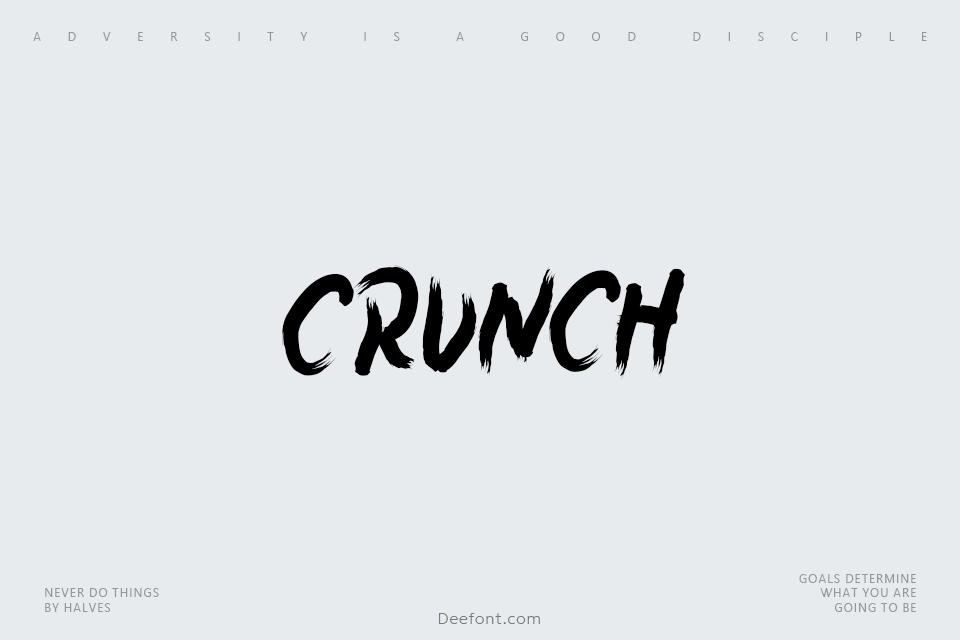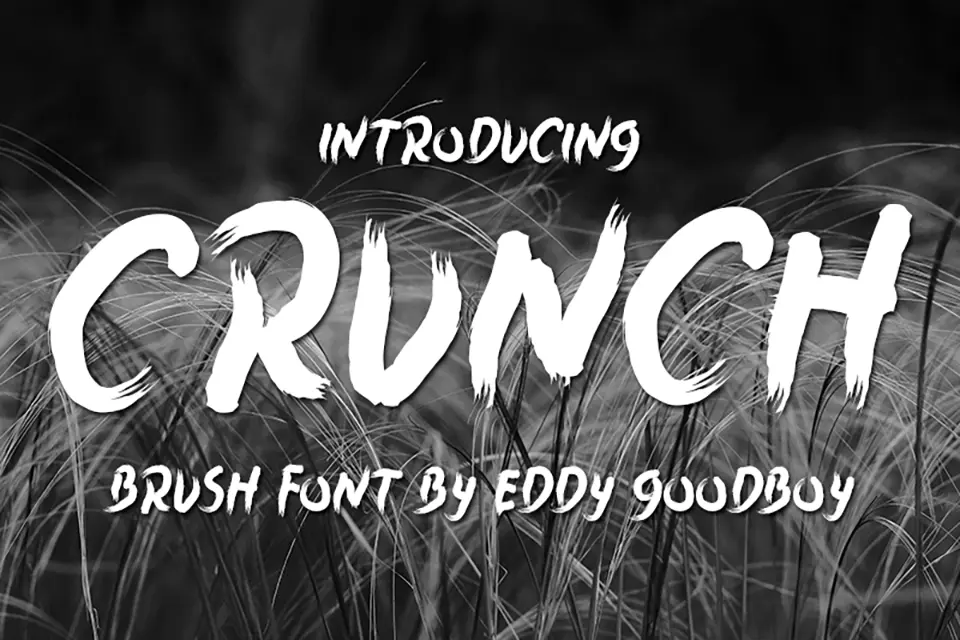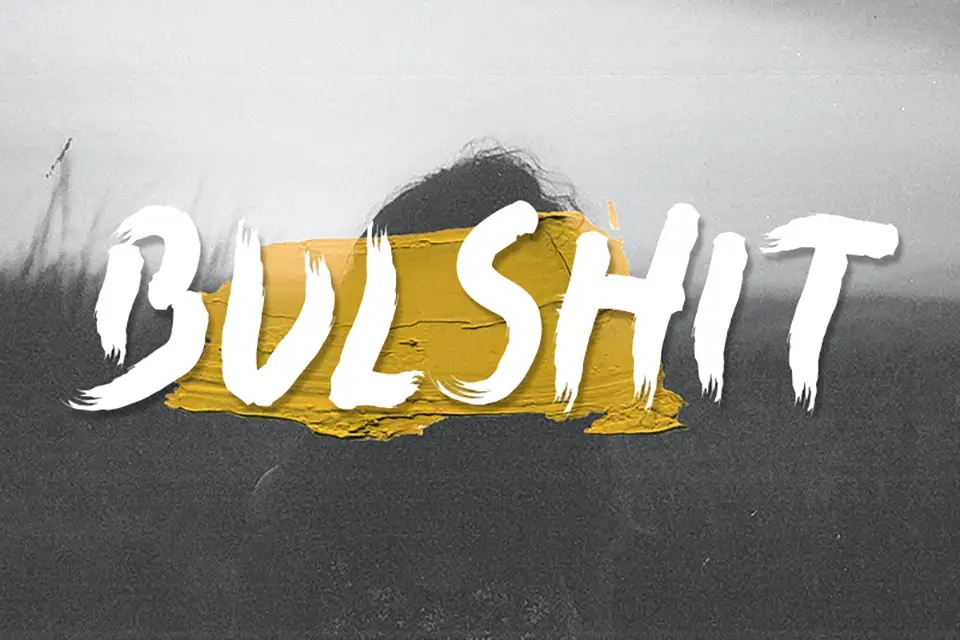
Crunch Font
Crunch is a dynamic brush script font designed by Bilqis Studio that combines expressive handwritten aesthetics with contemporary design sensibilities. Featuring a flowing, organic letterform structure, this typeface excels in creating casual display typography for projects requiring personality and warmth. With its characteristic brush-like strokes and spontaneous appearance, Crunch brings energy to posters, signage, and creative branding applications. The font supports 12 languages and offers a refined collection of glyphs perfect for informal, artistic projects where authenticity matters.
Designed by:Bilqis Studio (Nurediprayitno)Website